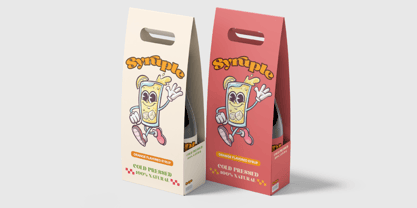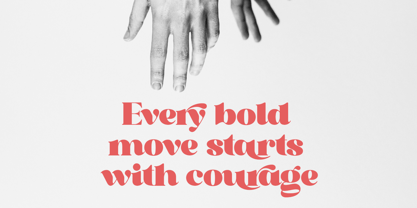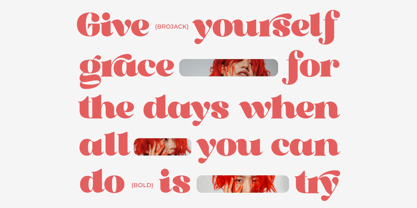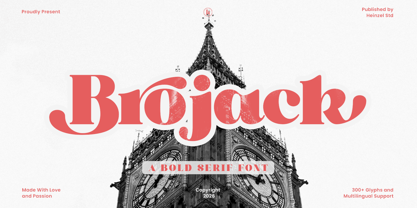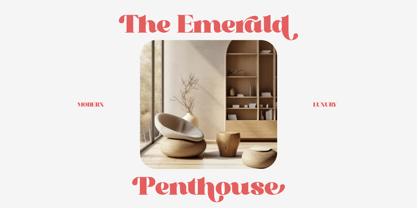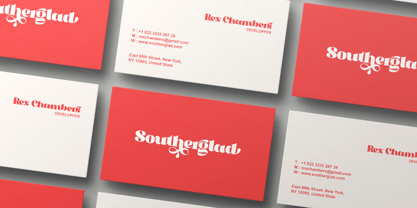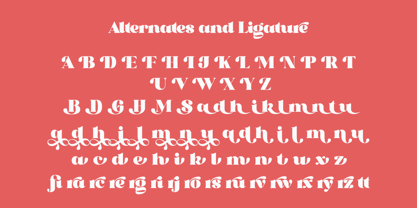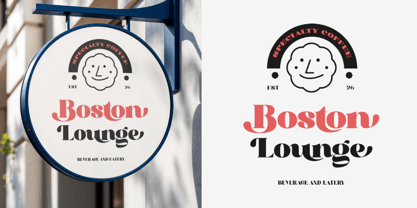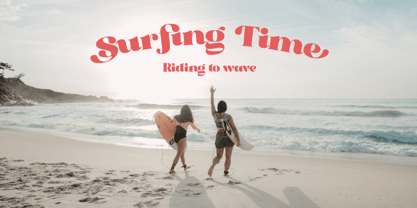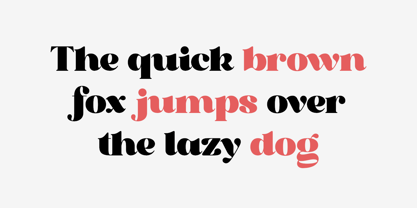
Brojack
by Heinzel Std
The Brojack Font Family was designed by Nofi Sofyan Hadi and published by Heinzel Std. Brojack contains 1 styles. More about this family
Brojack is a bold retro serif font inspired by classic vintage typography with a modern twist. Its strong curves, thick strokes, and elegant serifs make it perfect for branding, logos, posters, packaging, headlines, and editorial designs. Brojack delivers a nostalgic yet stylish look, ideal for retro-themed projects, fashion brands, creative studios, and display typography. With multilingual support and extensive glyphs, this font offers versatility and professional-quality typography for both digital and print use.